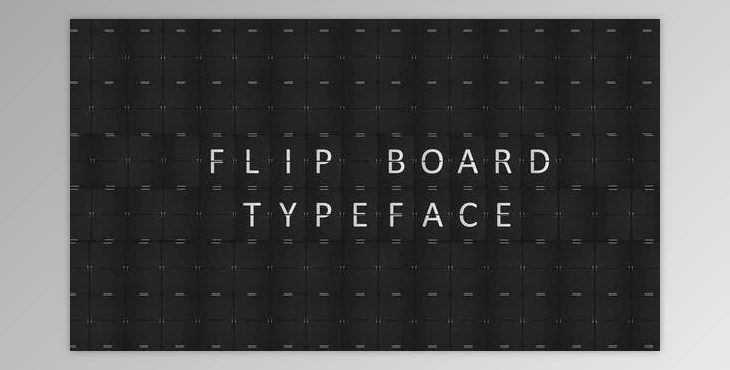
Flip Board Typeface - AE Project VH-53402600:
The Flip Board Typeface is a template for After Effects showcasing a 3D flipping board typeface.
It comes with 48 alphabet characters plus 1 blank letter, allowing you to customize text, font, size, and colors.